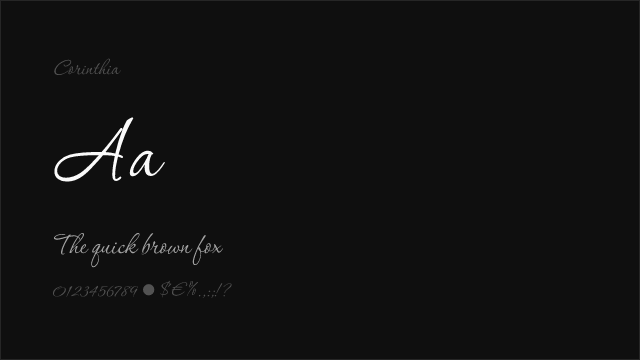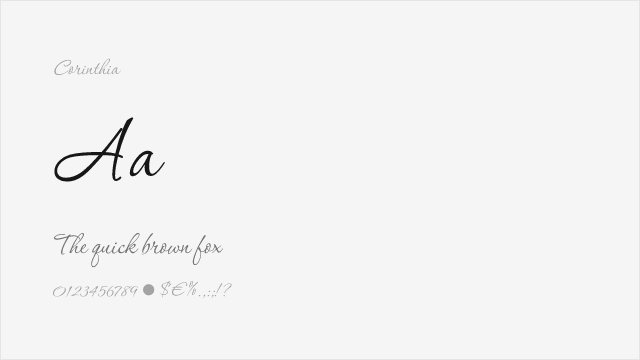
Free Alternatives to Zapfino with Script Style
Zapfino is known for its script aesthetic. If you're looking for a free display font with a similar script feel, these 3 alternatives offer comparable characteristics. We've identified 3 that are especially well-suited for this context. All are available under open-source licenses for unrestricted commercial use.
#1 Corinthia 70%
Formal calligraphic script with flowing connected letterforms
#2 Pacifico 65%
Simpler script alternative
#3 Lobster 60%
Casual script option